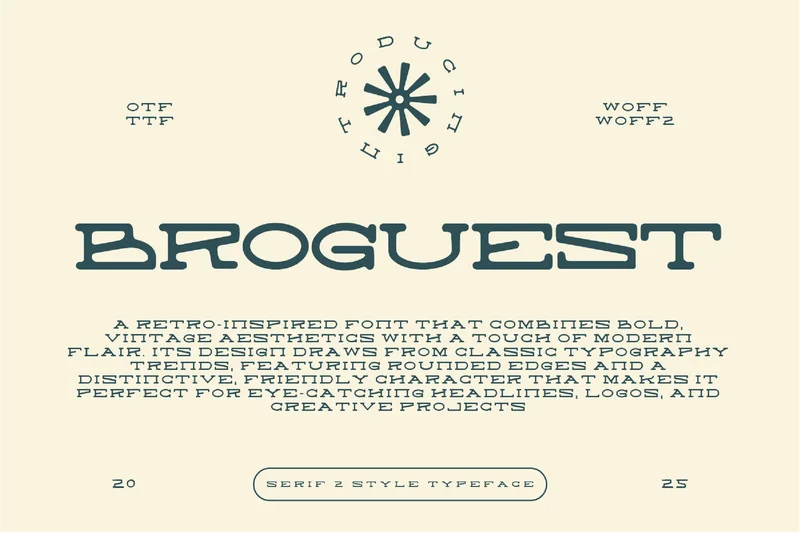
Broguest – Vintage Font
Broguest is a retro-inspired font that combines bold, vintage aesthetics with a touch of modern flair. Its design draws from classic typography trends, featuring rounded edges and a distinctive, friendly character that makes it perfect for eye-catching headlines, logos, and creative projects. This font is ideal for those looking to evoke a sense of nostalgia while maintaining a contemporary feel. Whether used for branding, posters, or digital content, Broguest brings an energetic and playful vibe to any design.